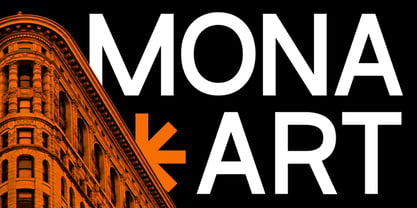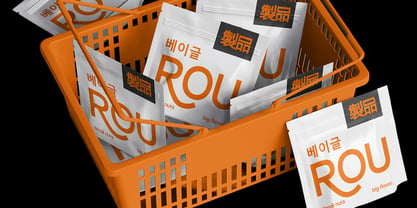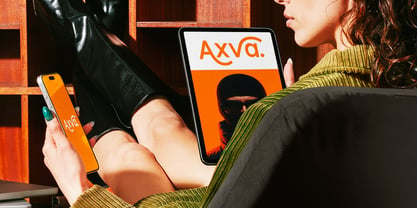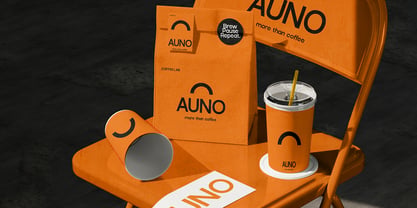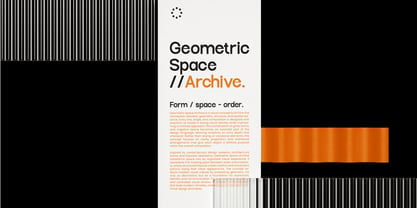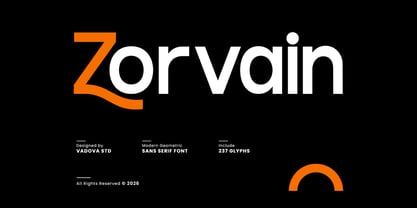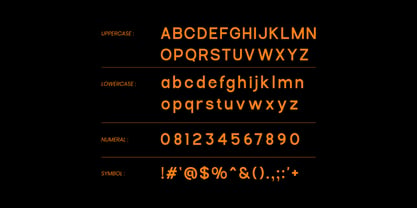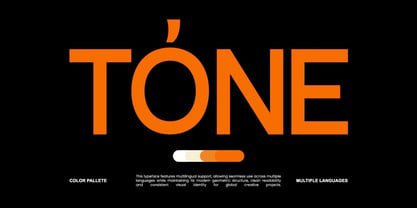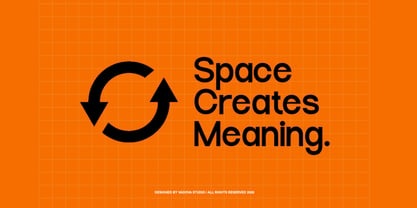
Zorvain
by Vadova Std
The Zorvain Font Family and published by Vadova Std. Zorvain contains 1 styles. More about this family
Zorvain is a modern geometric sans serif font featuring clean curves, balanced proportions, and a minimalist contemporary structure. Designed with a sleek geometric appearance and smooth rounded details, this typeface delivers a strong visual identity while maintaining excellent readability across digital and print media.
Relevance & Use Cases works perfectly for modern branding systems, technology startups, editorial layouts, corporate identities, digital interfaces, posters, packaging, and minimalist visual projects. Its geometric structure and smooth readability make it highly suitable for professional presentations, UI/UX design, advertising campaigns, social media graphics, and contemporary logo development requiring a clean and futuristic appearance.